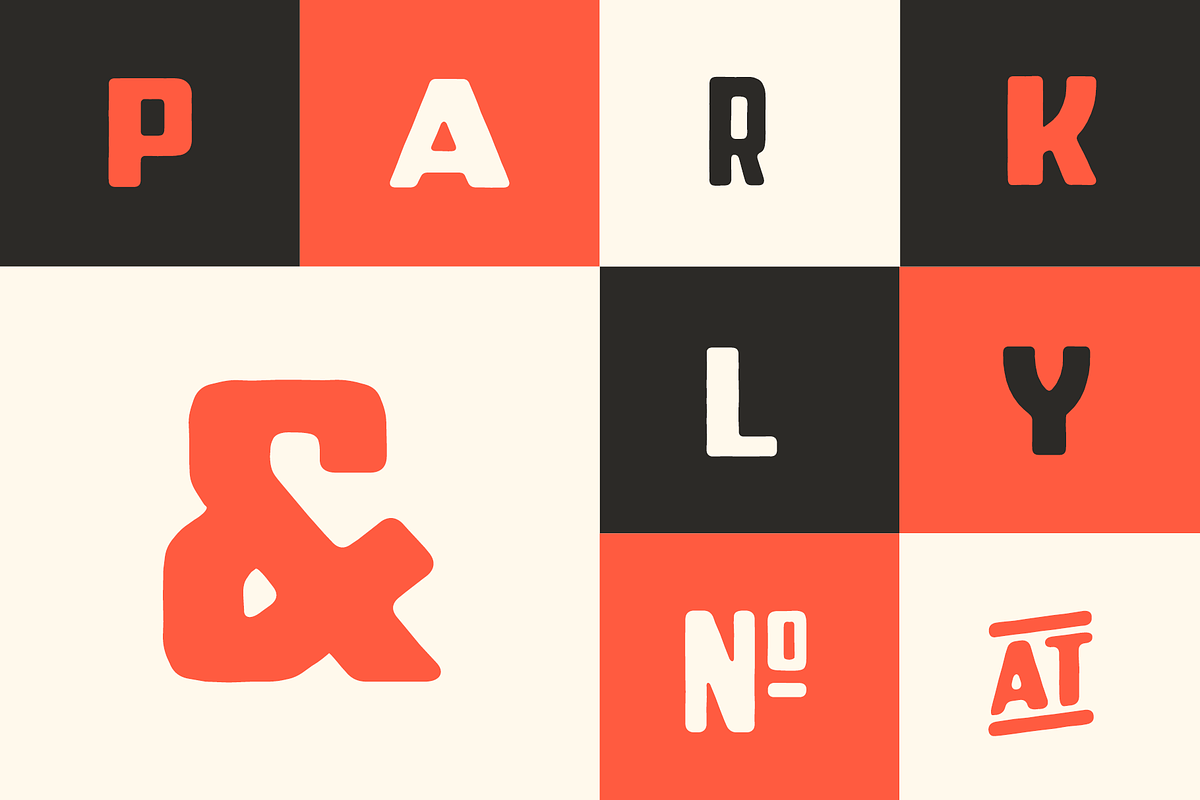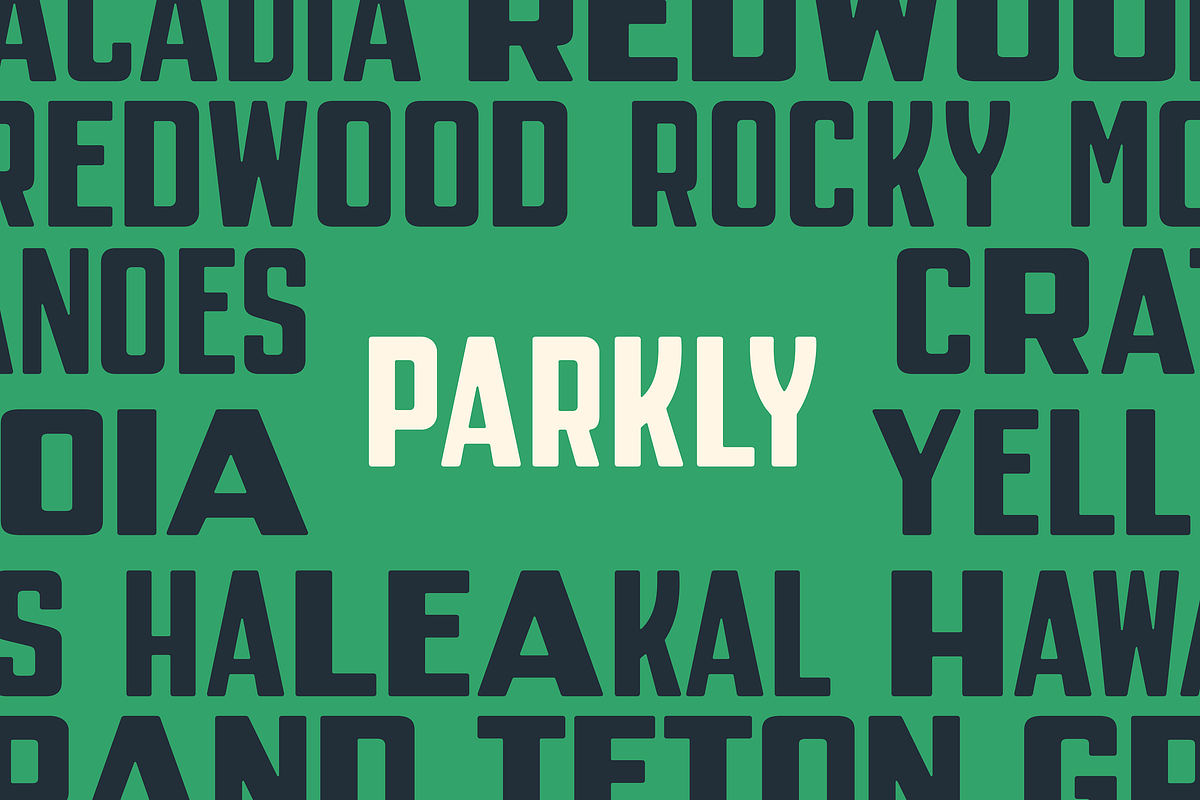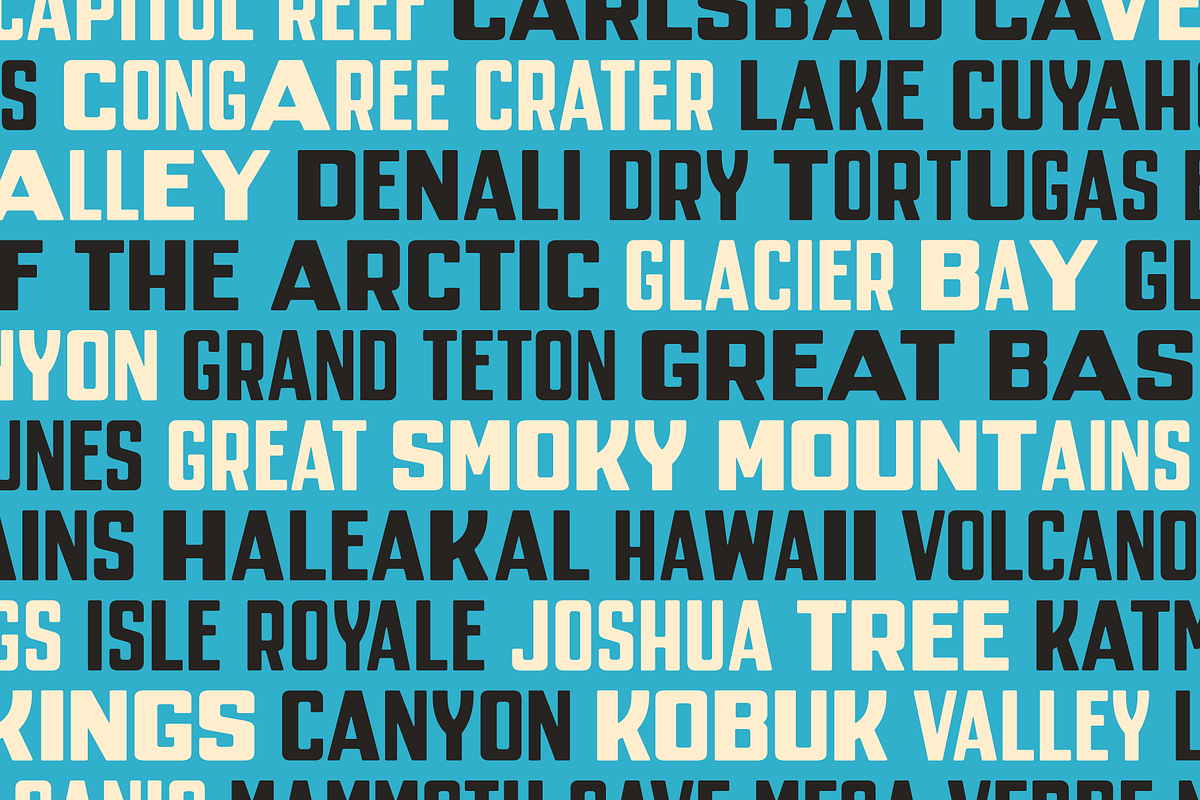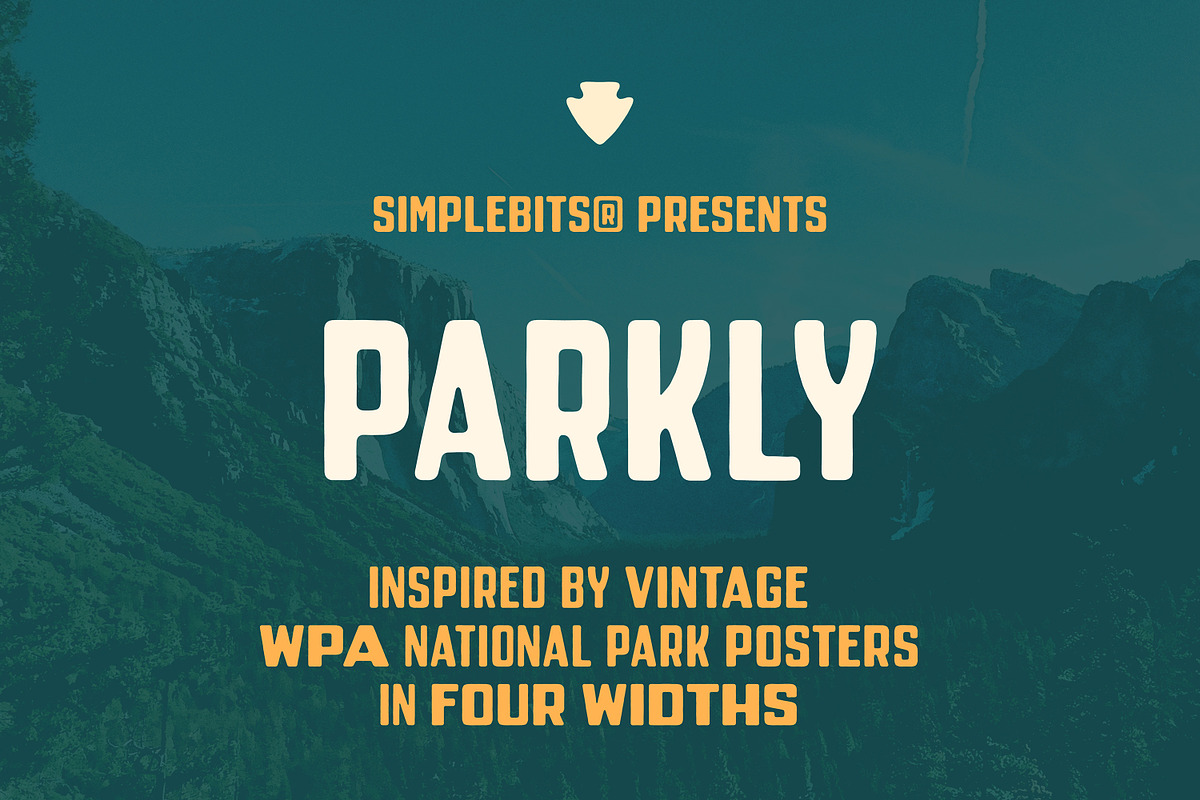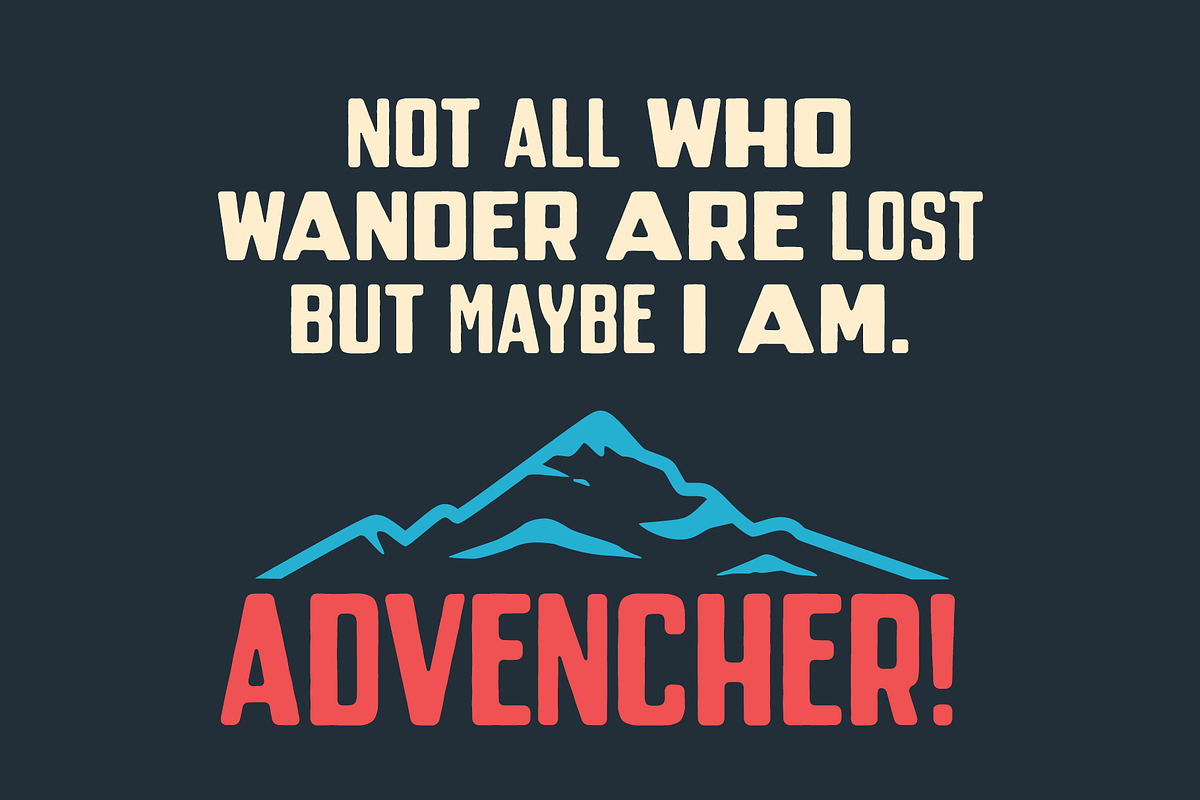
Parkly — Vintage display sans
Inspired by vintage WPA National Park posters, Parkly is an all-caps display sans-serif in four widths: Condensed, Regular, Wide, and Extra Wide—each in Soft and Regular styles. Slightly rounded and subtly Art Deco, things get really interesting when you mix the three widths within the same word. Great for mimicking that old, wood type, park poster and signage vibe. Includes numbers, punctuation, diacritics and expanded language support—plus alternate characters and signature arrowhead arrows.